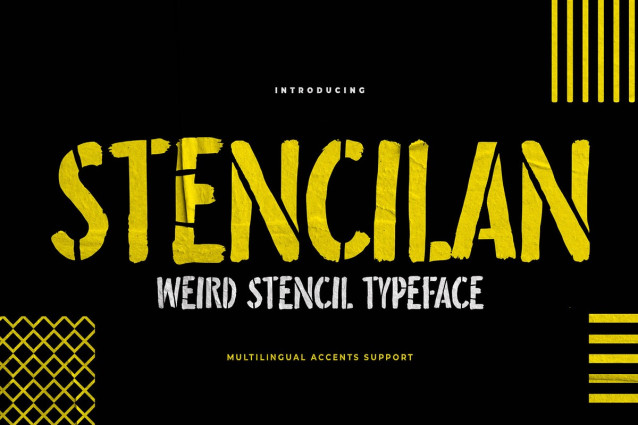
Stencilan Font
Stencilan Font is a unique and expressive stencil typeface crafted with bold, raw, and hand-cut character. With its rugged textures, irregular cuts, and artistic imperfections, STENCILAN brings an edgy, industrial, and creative vibe perfect for projects that aim to stand out with a strong, experimental visual identity.
Designed with a handcrafted, urban feel, each letter delivers a powerful and artistic presence, making STENCILAN an ideal choice for designs that embrace street-style aesthetics, alternative layouts, and bold display headlines.